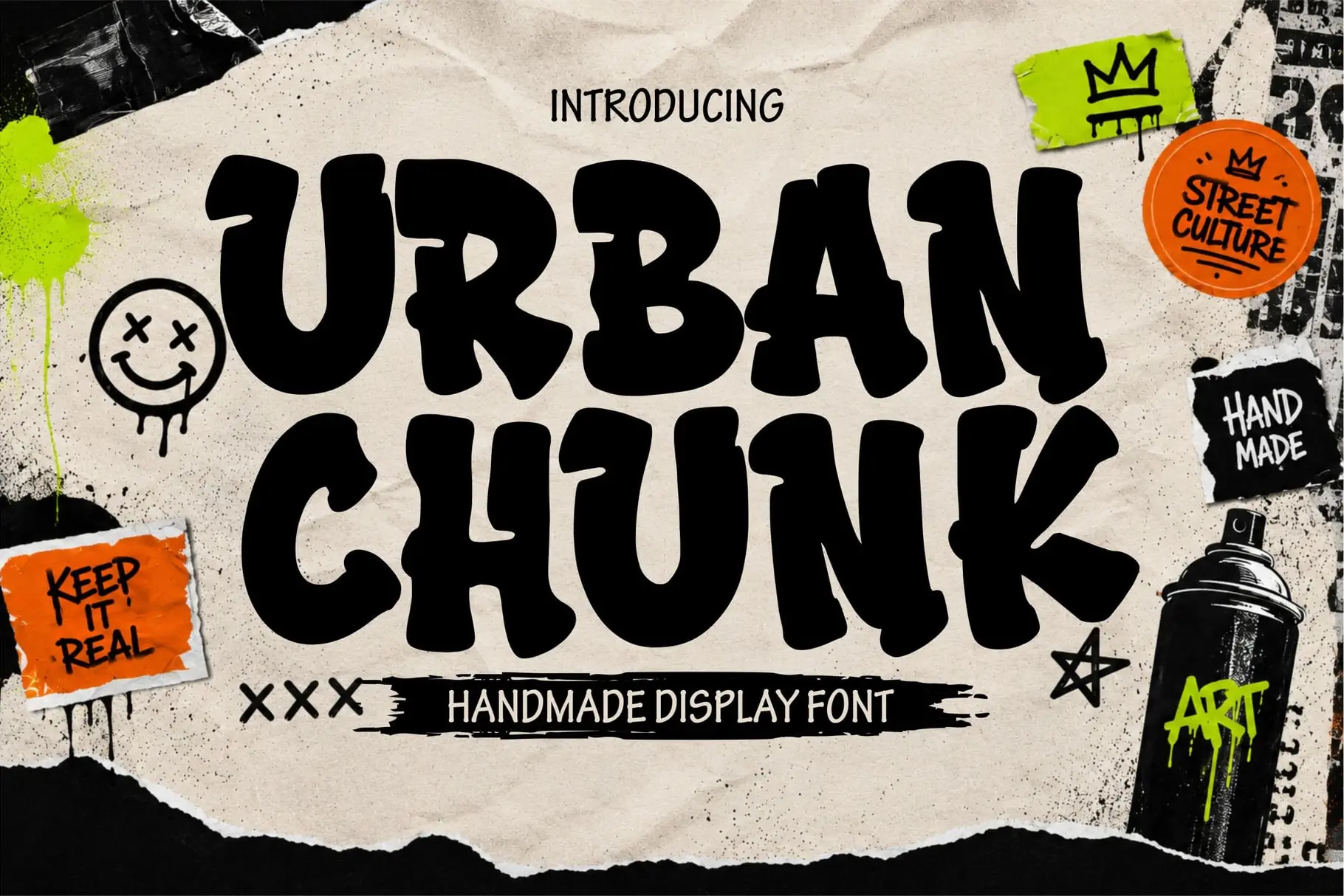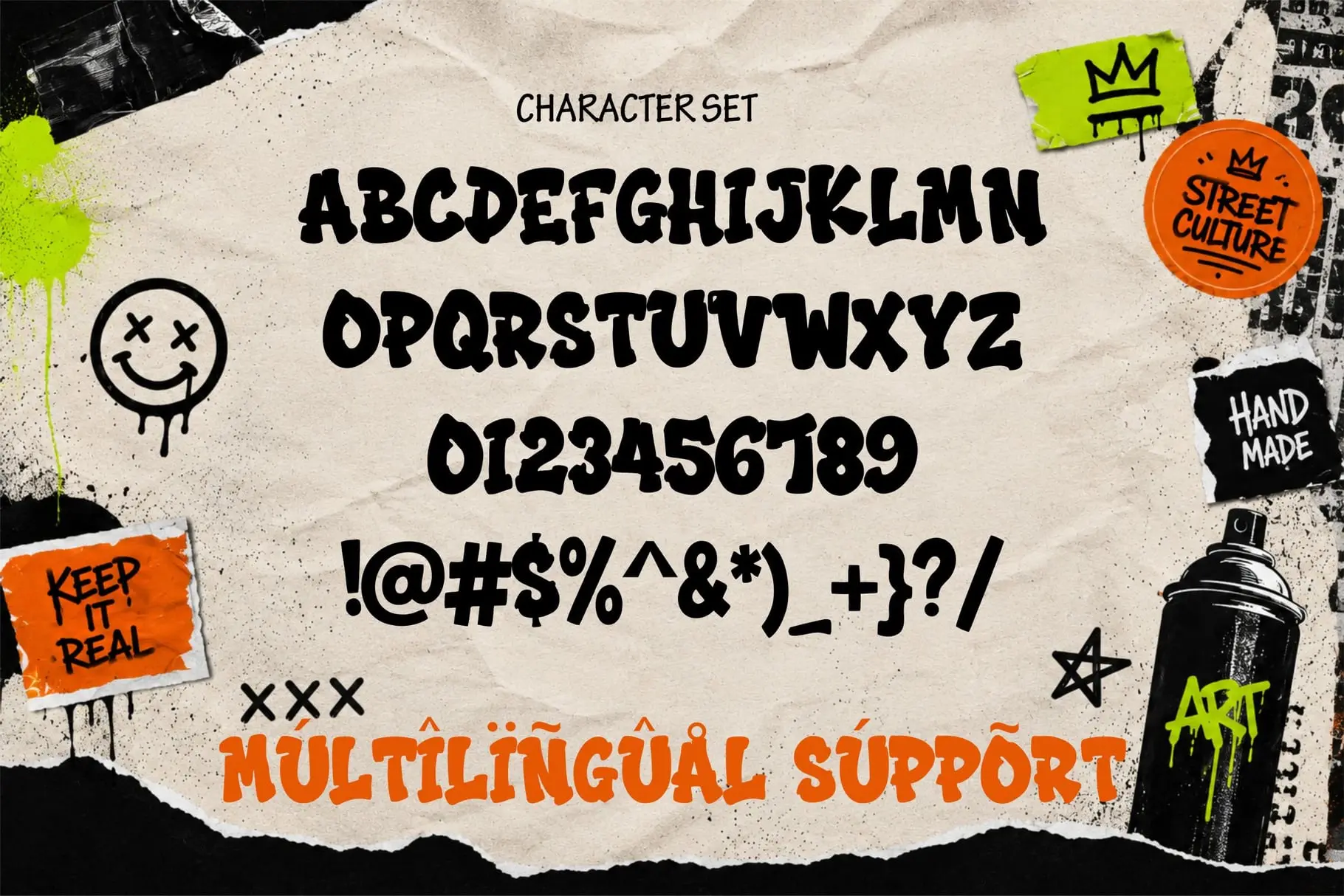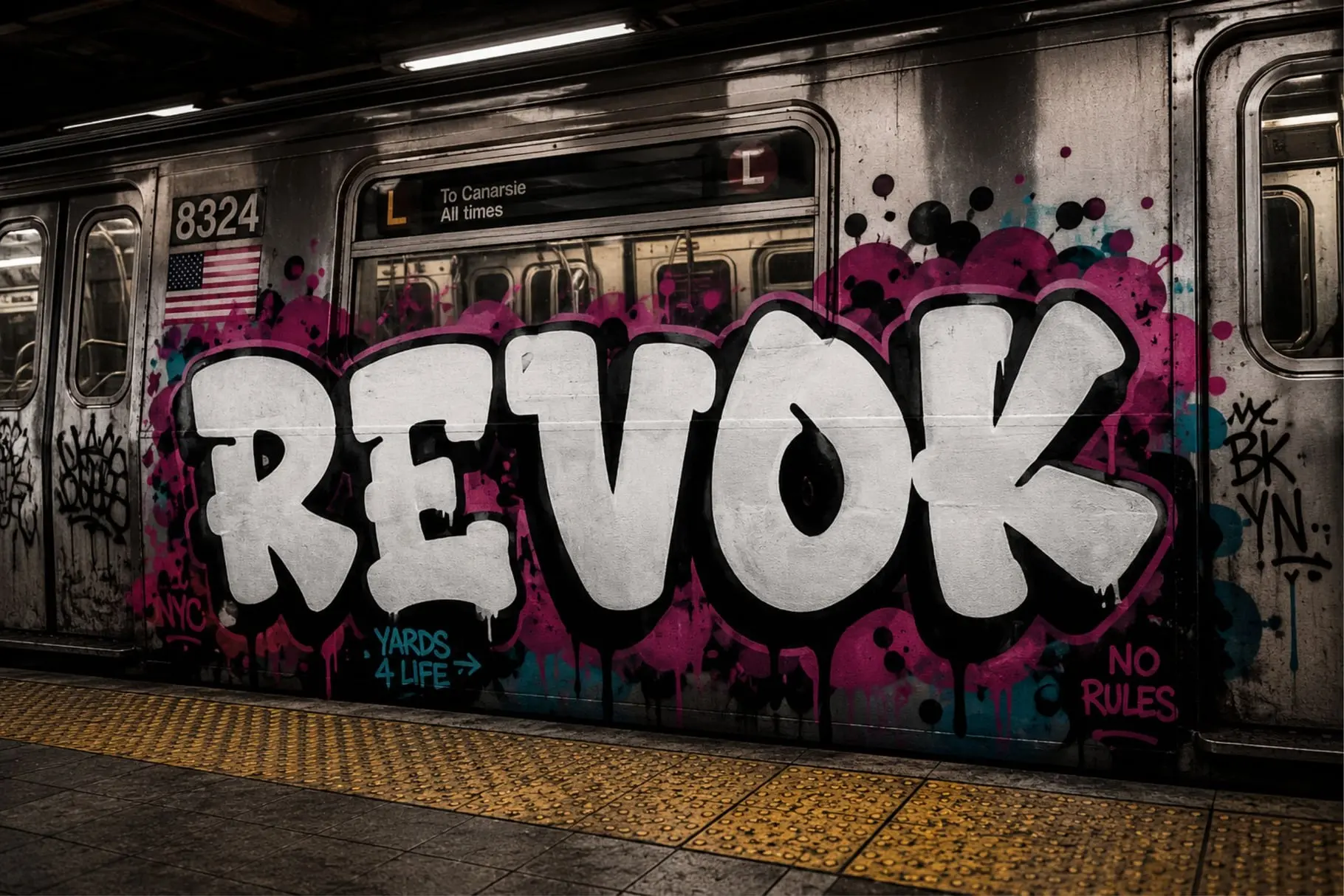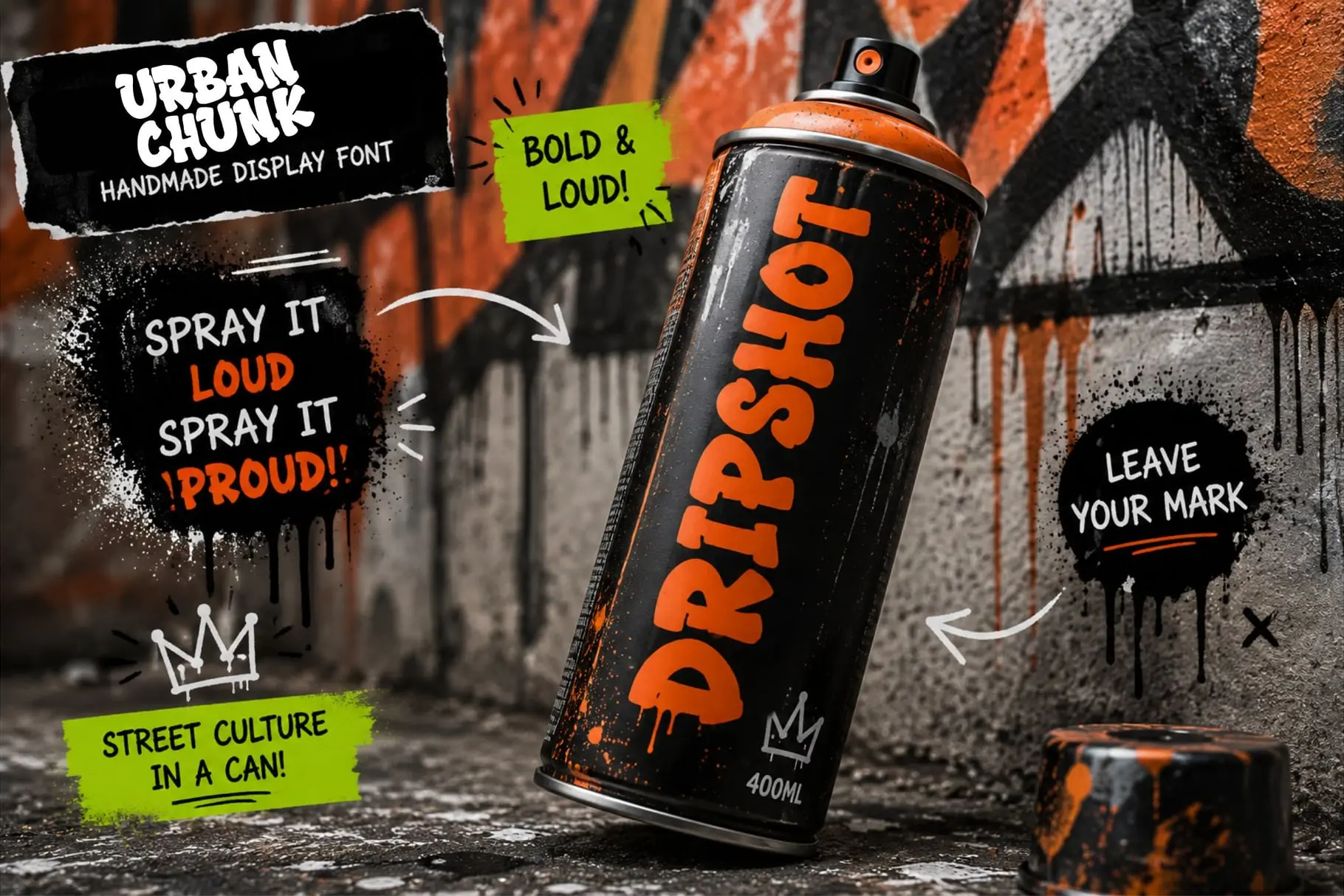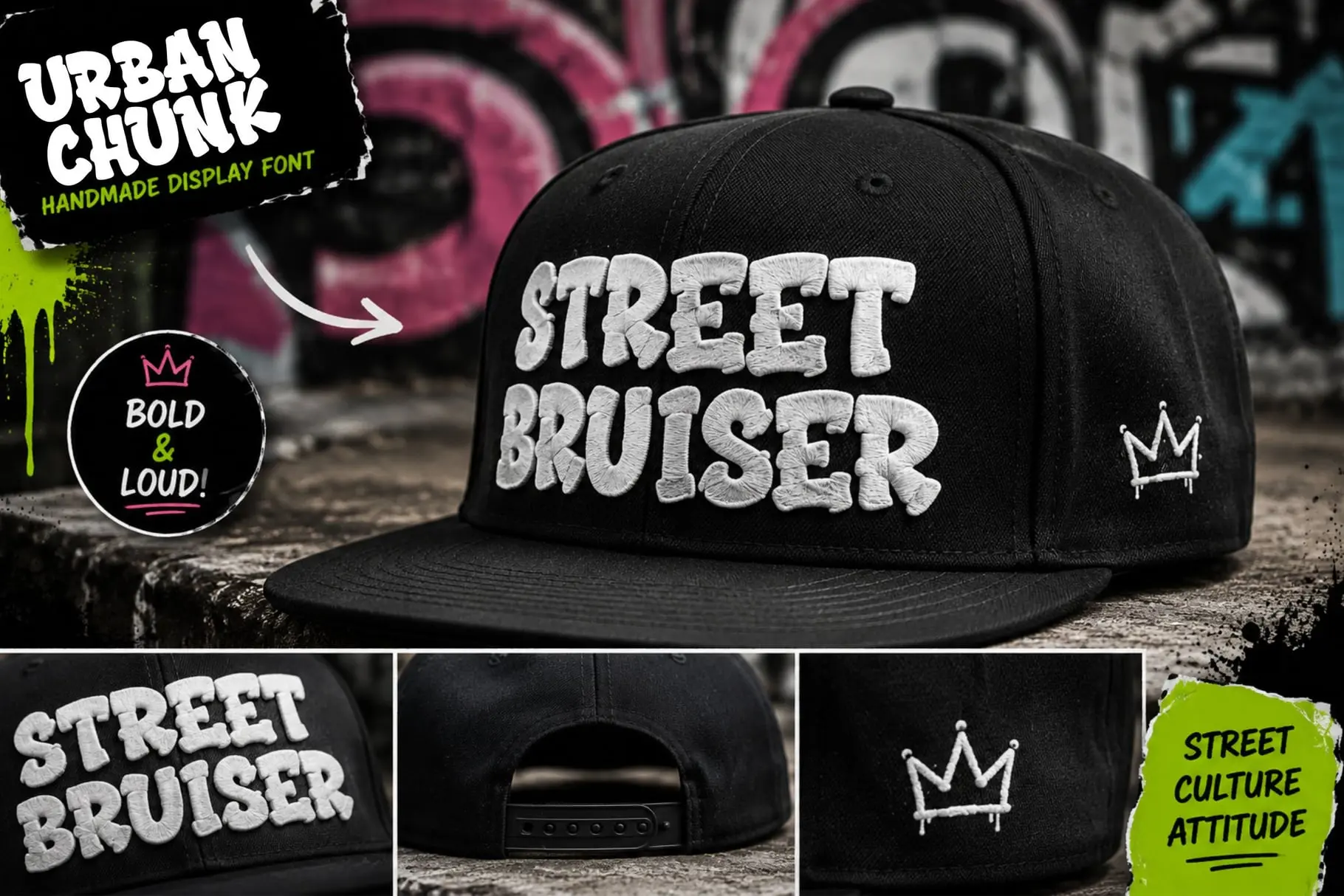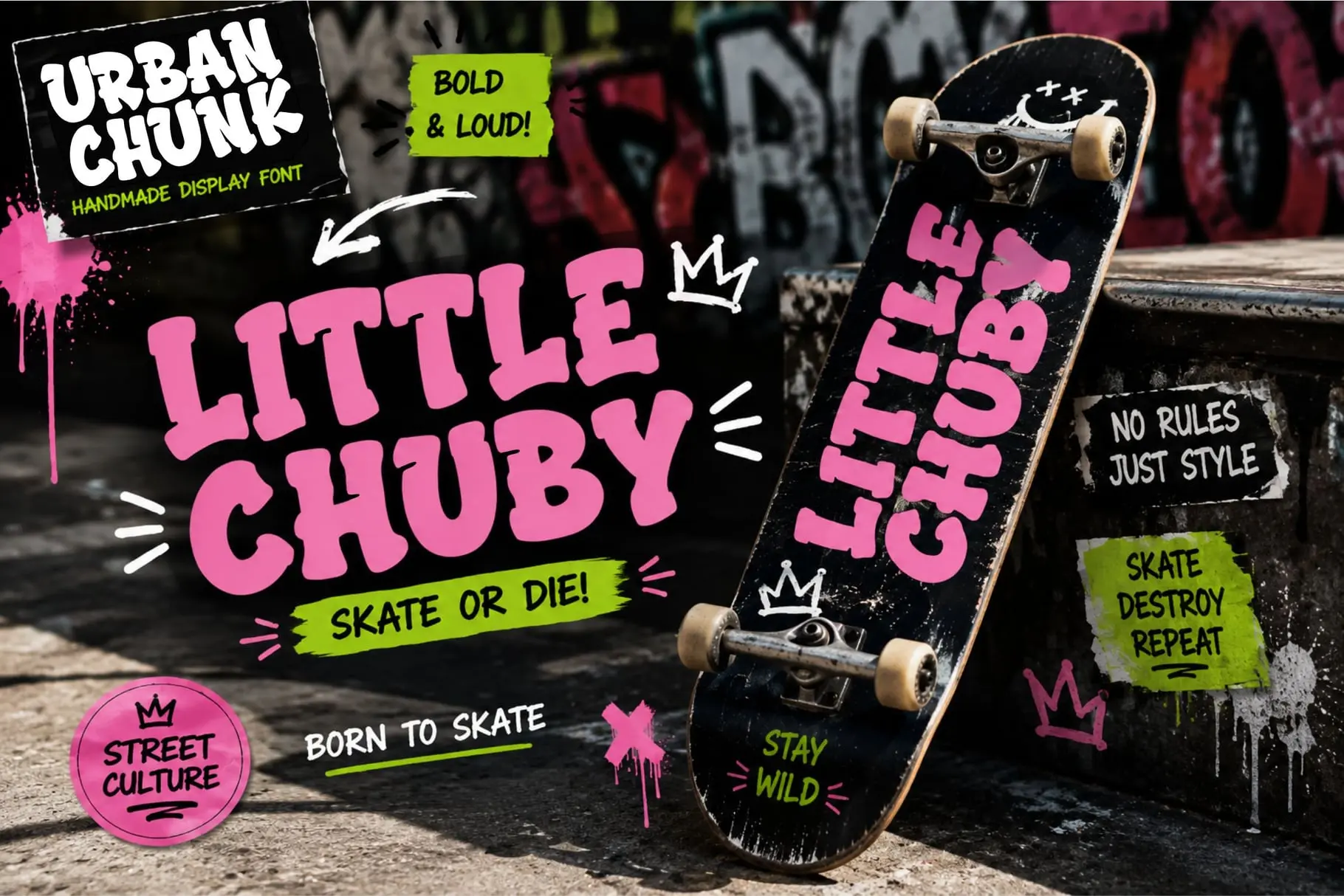
About Urban Chunk Graffiti Font
Urban Chunk is a fun, chunky, and expressive graffiti font designed to bring a fresh urban personality to your typography. Inspired by playful street lettering and bold graffiti aesthetics, this cute graffiti font combines thick rounded characters with a friendly attitude that instantly grabs attention. Whether you’re designing apparel, branding, posters, social media graphics, or merchandise, Urban Chunk graffiti font helps your creative projects stand out with confidence and charm.
Unlike traditional aggressive graffiti lettering, Urban Chunk introduces a softer and more approachable style while preserving authentic urban character. This urban graffiti font offers a perfect balance between playful creativity and professional usability, making it an excellent choice for designers who want something unique, memorable, and highly versatile.
A Cute Graffiti Font with Bold Urban Personality
Urban Chunk graffiti font is built around oversized letterforms and chunky proportions that create an immediate visual impact. Every character is carefully crafted to maintain the fun spirit of street art while remaining clean and highly readable. This cute graffiti font captures the playful side of urban typography without sacrificing the bold appearance that makes graffiti lettering so iconic.
The rounded edges and balanced construction give this graffiti font a welcoming personality. Whether you’re creating playful branding or energetic marketing materials, Urban Chunk helps your typography feel lively, modern, and expressive.
Because of its thick structure, this urban graffiti font performs exceptionally well in both large headlines and attention-grabbing display text.
Inspired by Modern Street Art
Street culture continues to inspire designers around the world, and Urban Chunk graffiti font celebrates that creative energy through a fresh and approachable design. Instead of focusing on aggressive letterforms, this graffiti font embraces rounded shapes that make every composition feel dynamic and inviting.
This cute graffiti font works perfectly for brands that want an urban identity with a positive and playful personality. From fashion labels and cafés to toy packaging and creative agencies, Urban Chunk adapts beautifully to many different design styles.
The combination of bold shapes and friendly curves makes this urban graffiti font suitable for both commercial branding and artistic projects.
Perfect for Bold Branding
A memorable brand begins with memorable typography. Urban Chunk graffiti font is specifically designed to help brands build strong visual identities with bold and approachable lettering.
The thick construction of this graffiti font makes logos highly recognizable across print and digital platforms. Whether you’re creating a fashion brand, food packaging, gaming identity, or youth-focused business, Urban Chunk provides typography that feels energetic, modern, and full of personality.
Designers looking for a cute graffiti font that remains professional will appreciate the flexibility and readability offered by Urban Chunk.
Complete Character Set & Typography Features
Urban Chunk – Cute Graffiti Font includes everything you need for professional creative work.
Uppercase Characters
Bold uppercase letters inspired by modern graffiti font culture while maintaining a playful and approachable appearance.
Multilingual Support
Supports multiple international languages, making this urban graffiti font suitable for global branding and multilingual projects.
Numbers & Punctuation
Includes a complete collection of numbers and punctuation, allowing your graffiti font projects to remain consistent across all creative applications.
- Bold cute graffiti font style
- Chunky urban lettering
- Regular and Block font styles
- High readability
- Professional uppercase characters
- Multilingual support
- Numbers and punctuation included
- Suitable for digital and print projects
- Modern street-inspired typography
- Perfect for branding and merchandise
- Easy to combine with other display fonts
Why Designers Love Urban Chunk
Designers choose Urban Chunk graffiti font because it offers something different from traditional graffiti lettering. Instead of relying on sharp or aggressive forms, this cute graffiti font uses rounded shapes and chunky proportions that feel energetic, friendly, and modern.
The included Regular and Block versions provide additional creative flexibility. Designers can easily create layered typography, colorful headlines, and bold branding systems without needing extra illustration work.
With two professional styles, multilingual support, complete punctuation, and high-quality OTF, TTF, and WOFF files, Urban Chunk is ready for everything from branding and apparel to packaging, posters, gaming, and social media.
If you’re looking for a cute graffiti font that combines playful energy, strong readability, and authentic urban style, Urban Chunk is the perfect addition to your creative collection.